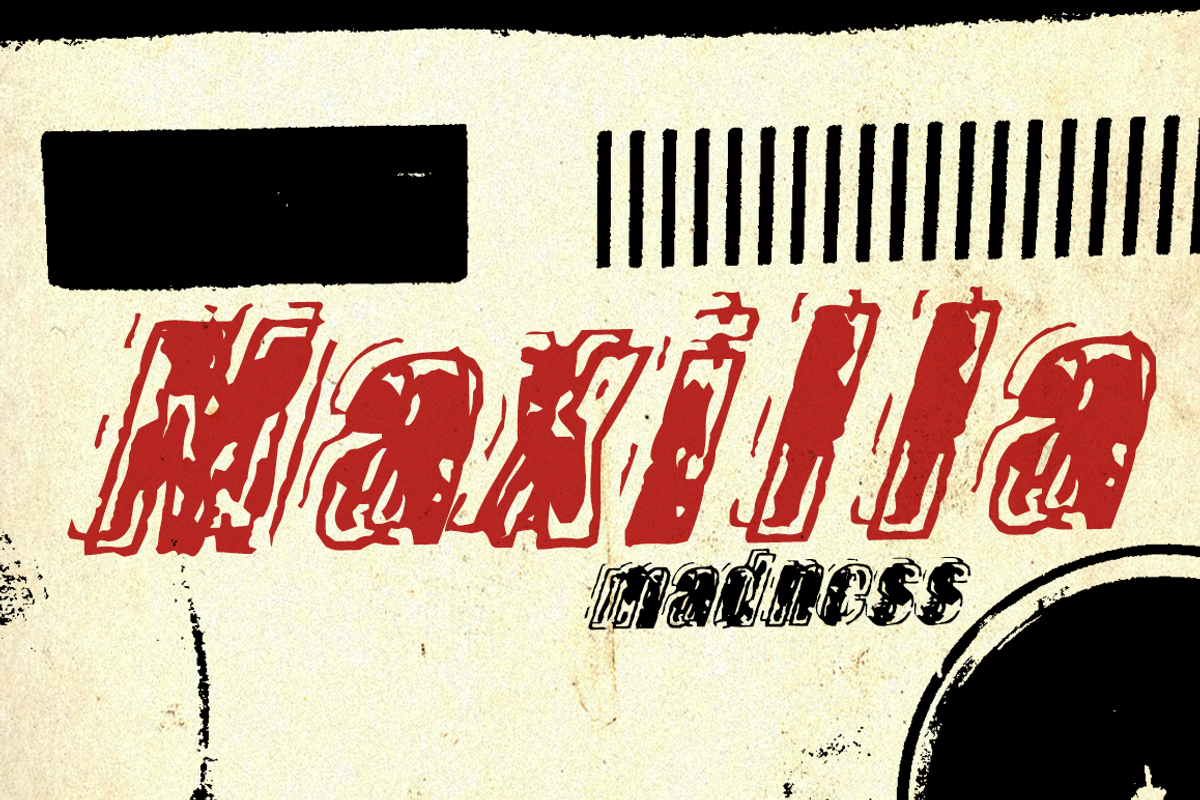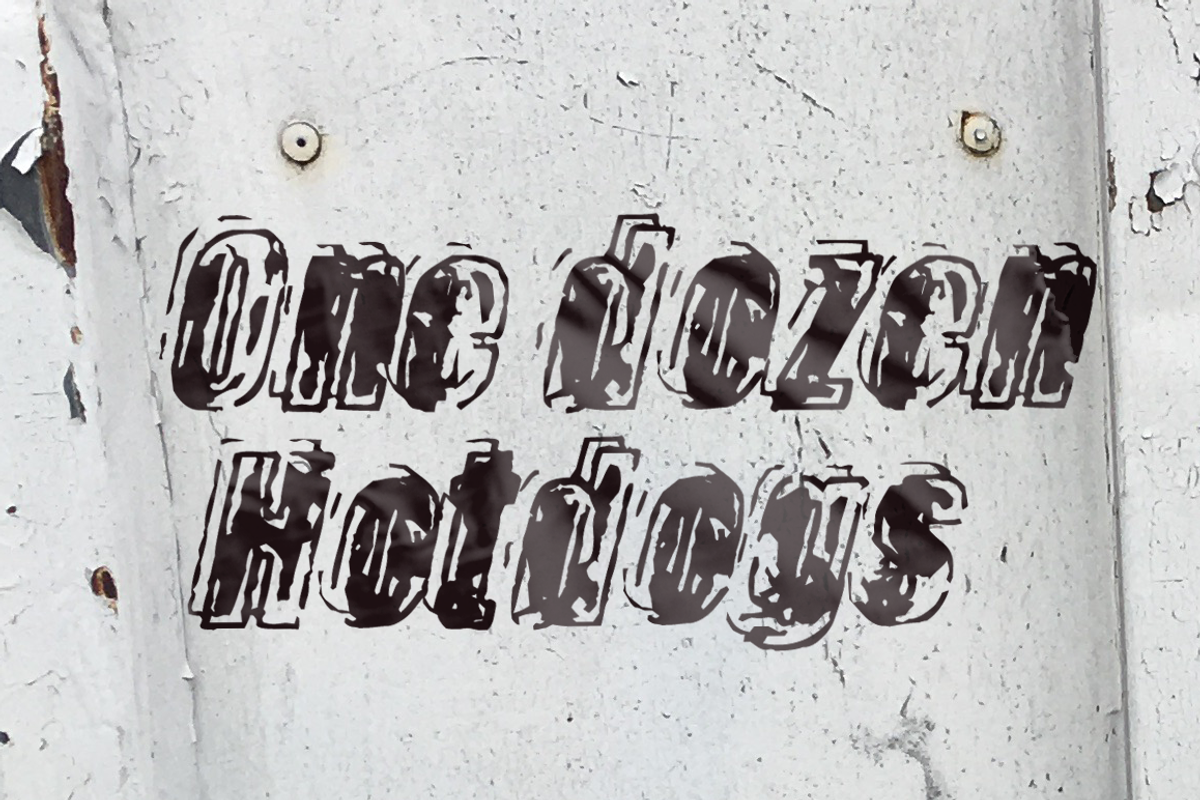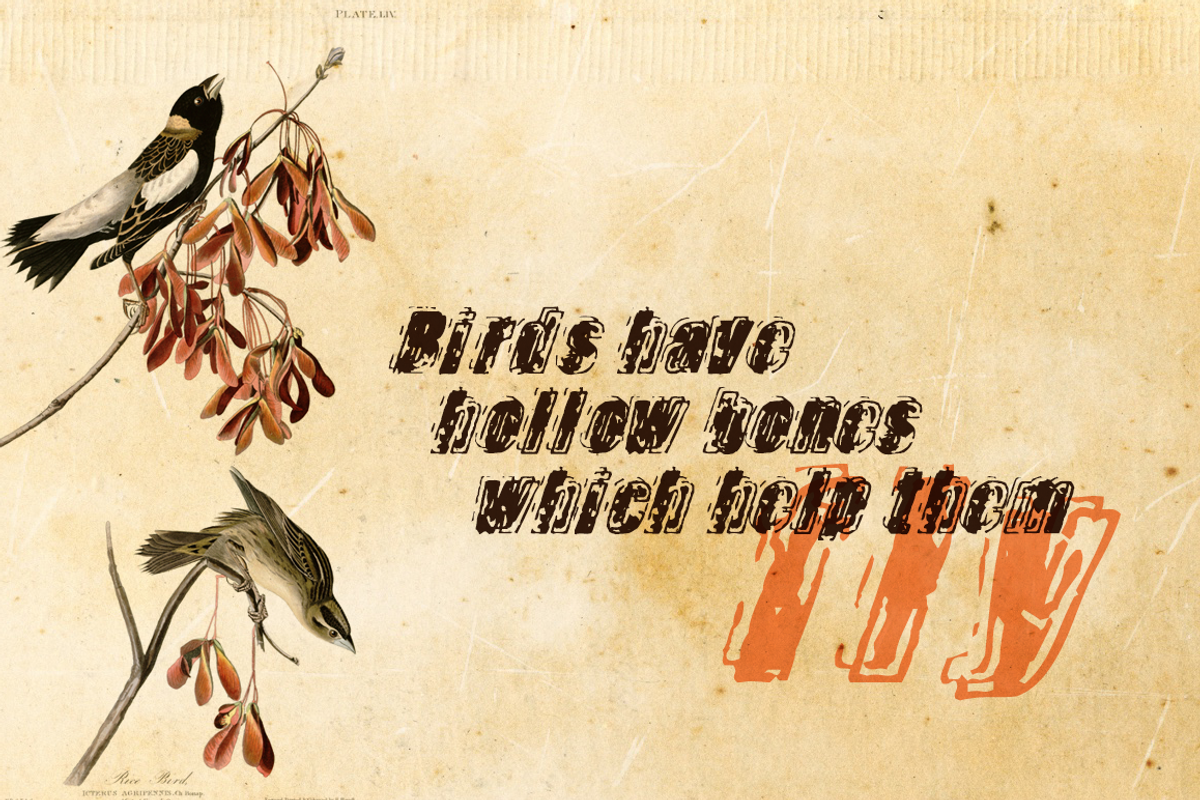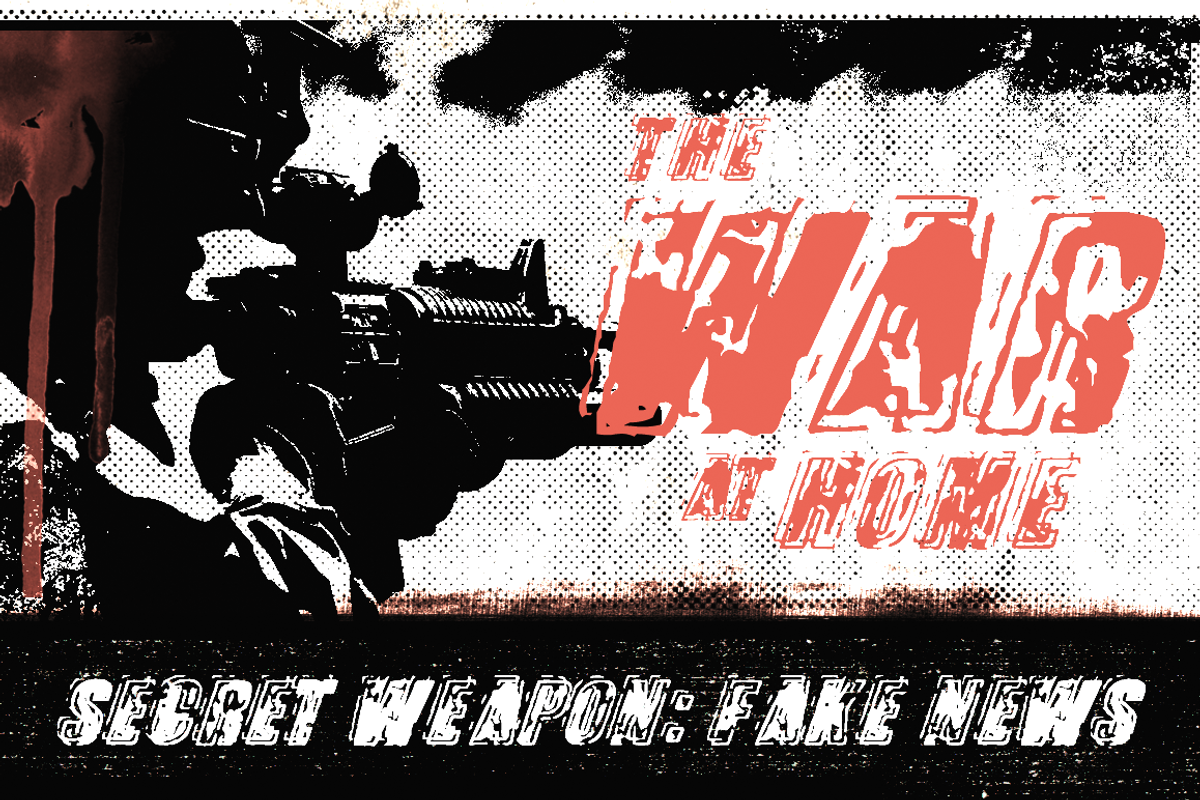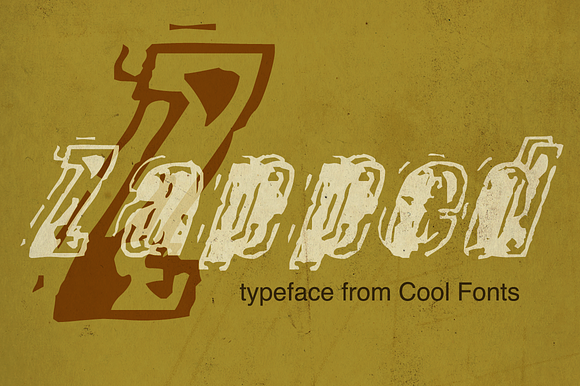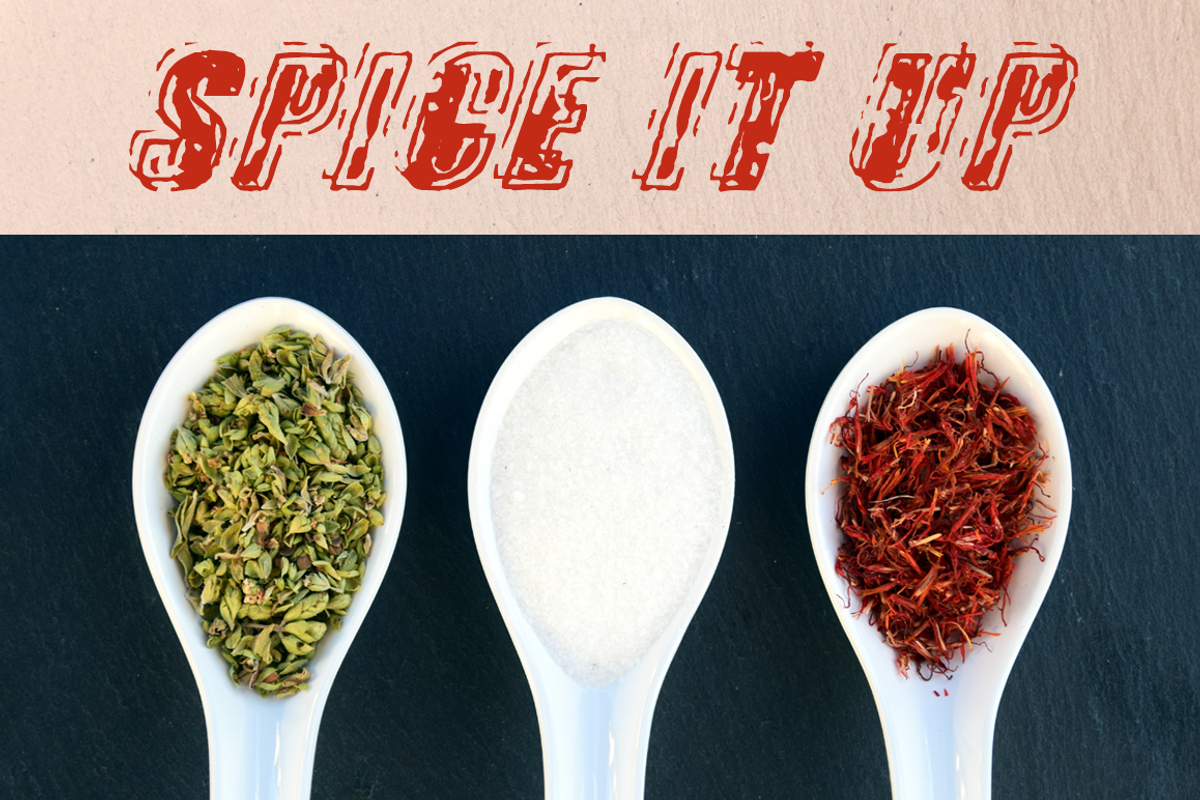
Zapped
Zapped is a unique grunge font that has a nice extruded feel with a strong outline to make it readable and total destruction inside. It was developed for some punk rock posters and has found it's way into lots of projects. It works great for contemporary display work, for fashion items, for event posters, movie posters, music posters, videos, DVD covers, in fact, anywhere that grunge fonts could possibly appear.
Zapped by Cool Fonts fits naturally into Branding, posters, packaging, typography.